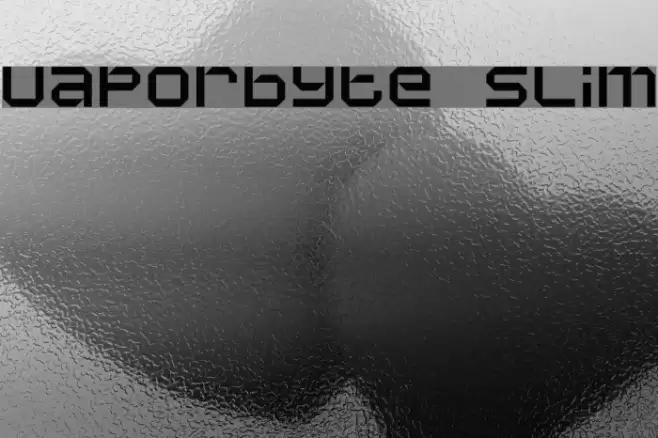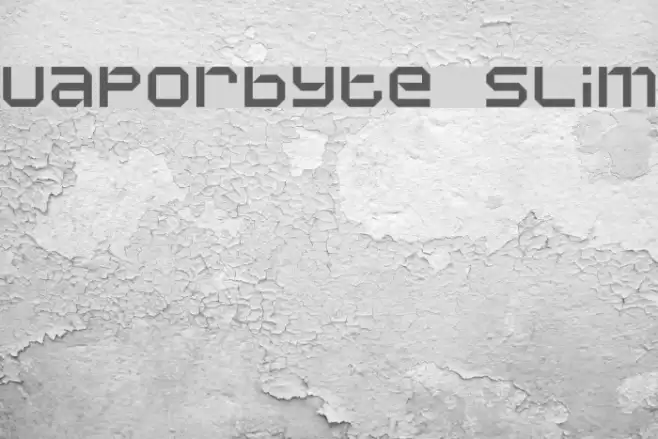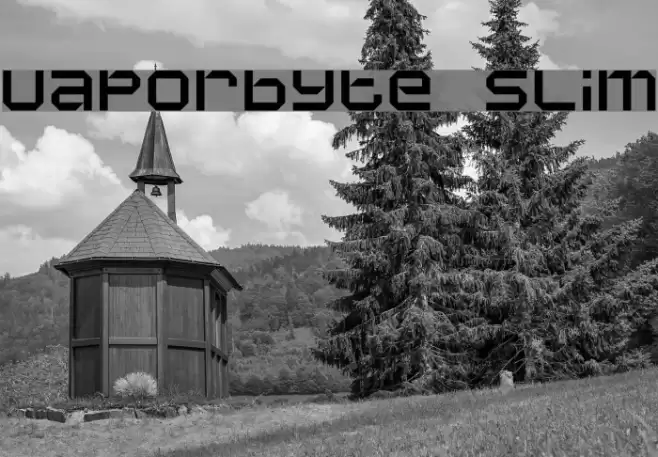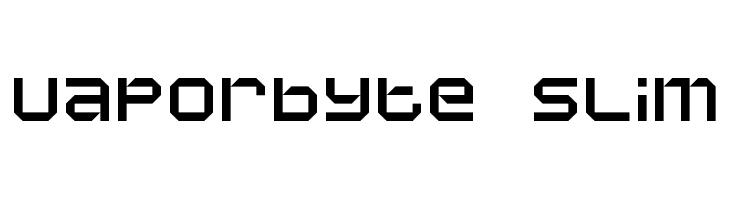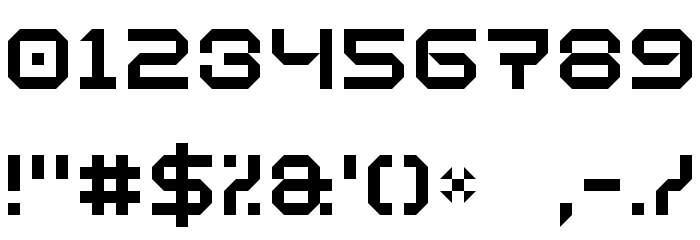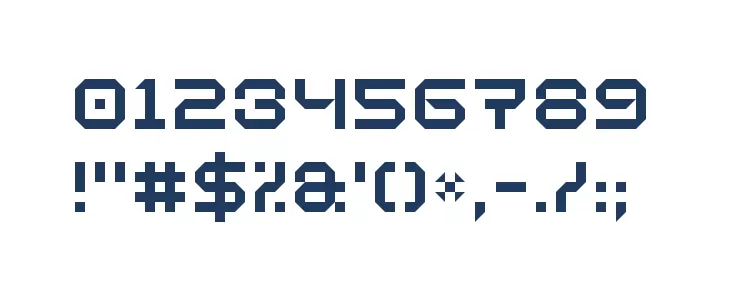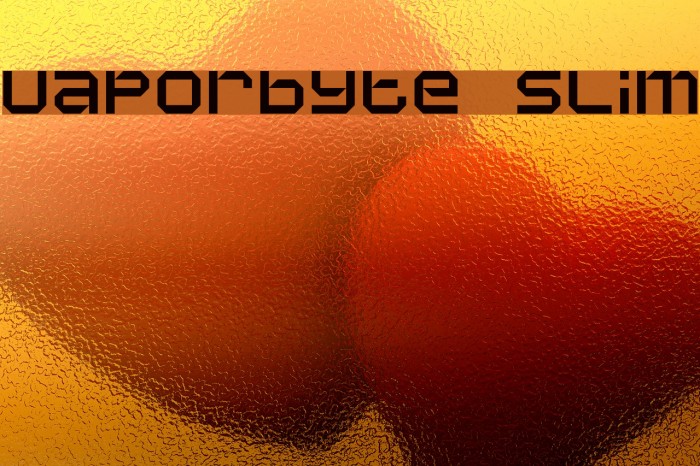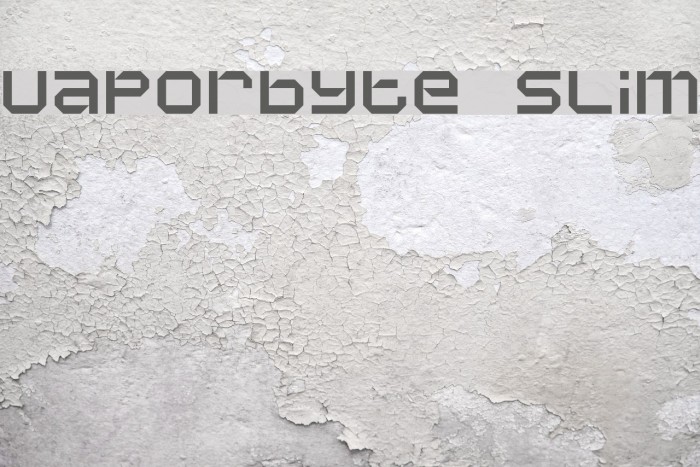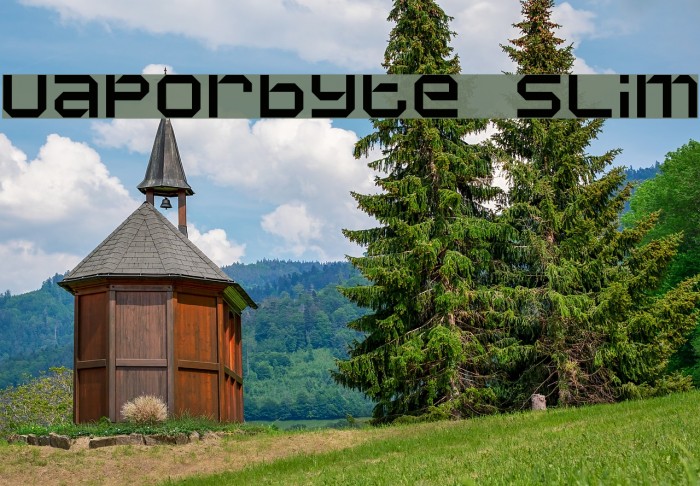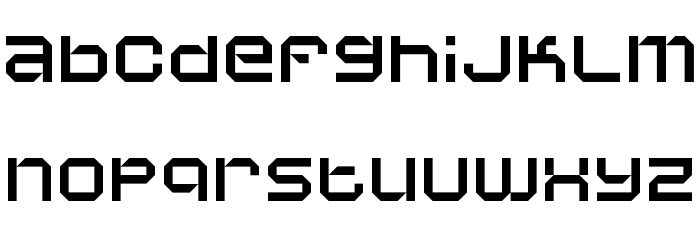
Vaporbyte Slim Font
Vaporbyte Slim Description
This font features a futuristic and geometric design with a digital aesthetic. The characters are constructed with sharp angles and straight lines, giving a sense of precision and modernity. The uppercase and lowercase letters maintain a consistent style, with distinct angular cuts and a blocky appearance. The numerals and special characters follow the same design principles, ensuring uniformity across all glyphs. This font is ideal for projects that require a tech-savvy or sci-fi feel, as it conveys a sense of innovation and forward-thinking.
A futuristic, geometric font with sharp angles and a digital aesthetic from Futuristic fonts.
- Proposed Projects: Ideal for tech branding, sci-fi posters, video game titles, and digital interfaces.
- Use Case: Headlines, Logos, Digital interfaces